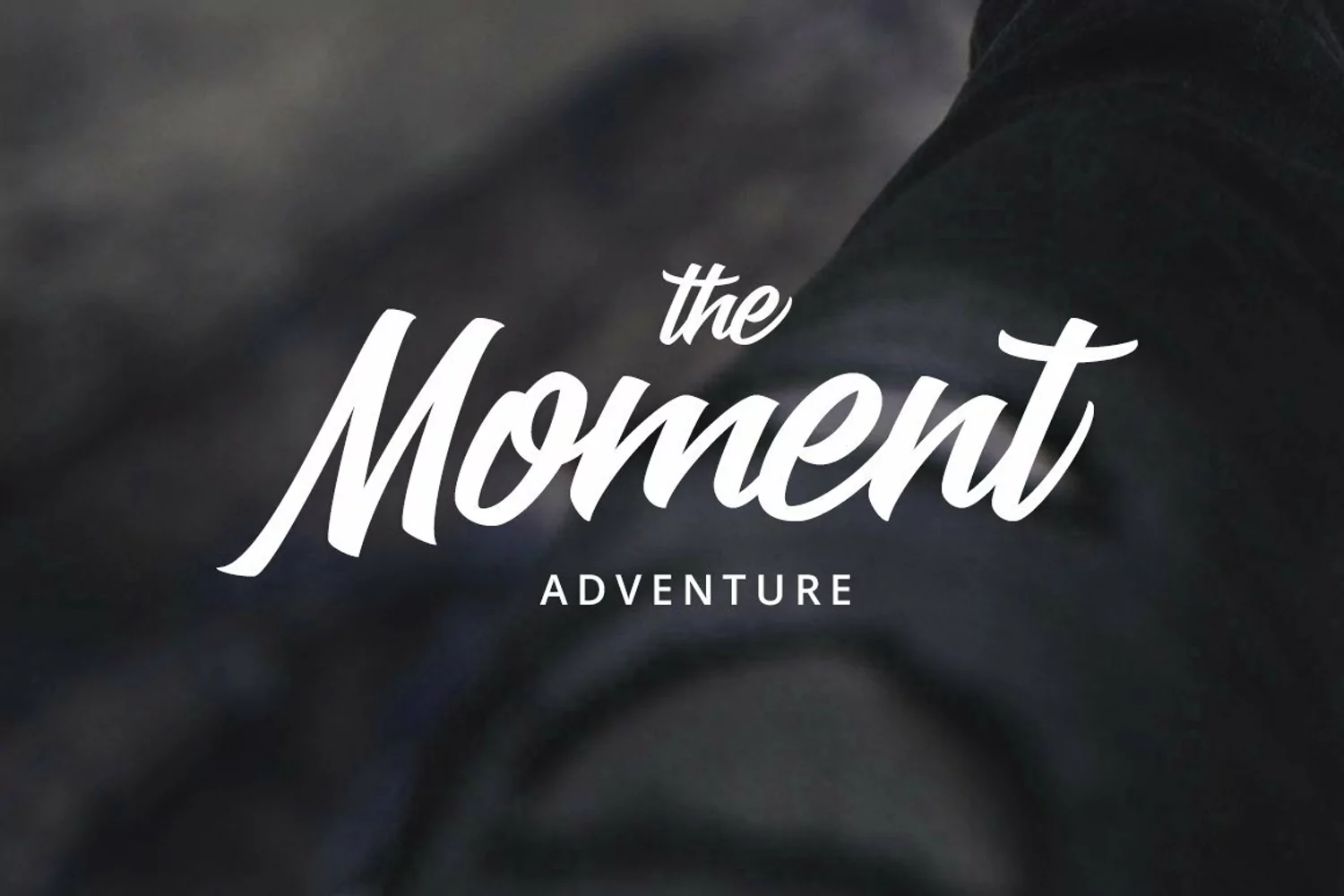
Alfien script font is excellent for logotype design and suitable for any design needs, poster design, flyer design, branding, modern advertising design, Art Quote, book cover, magazine, special events, custom mug, pillow, t-shirts and more.